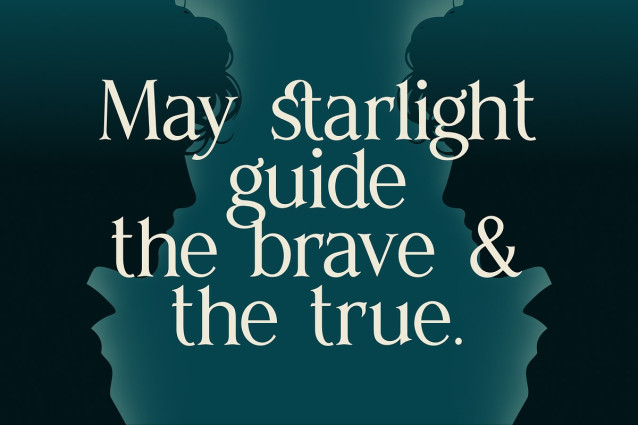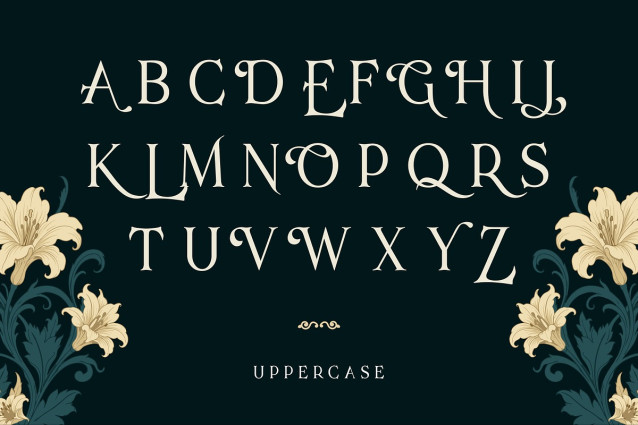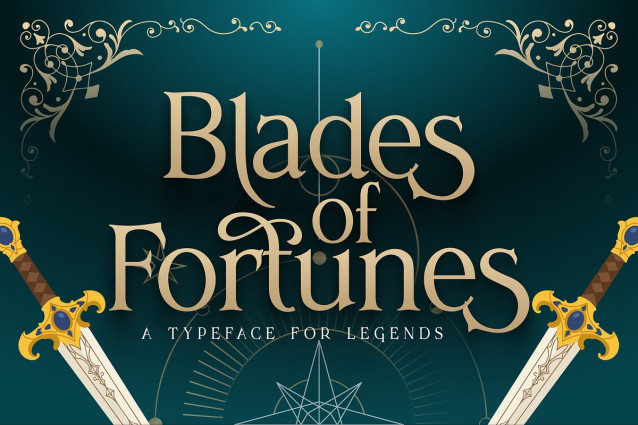
Blades Of Fortunes Font
Blades Of Fortunes Font an elegant display serif typeface featuring high stroke contrast, dramatic swashes, and sharp terminals. Perfect for fantasy book covers, RPG branding, and epic cinematic titles.